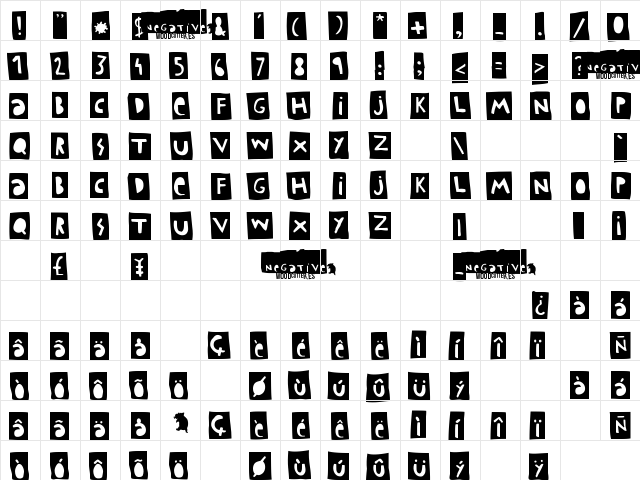
Complete Woodcutter Negative Regular glyph index. Displaying only characters natively supported by Woodcutter Negative Regular font.
Woodcutter Negative echoes the hand-painted signage and woodblock typography of the American frontier, with a warm, rugged personality.
Font Pairing: Combine Woodcutter Negative with a simple slab or neutral sans - period-accurate companions reinforce the vintage feel without competing for attention.
Pro Tip: Use Woodcutter Negative for short, impactful bursts of text - it shines in poster headlines and product names rather than extended copy.